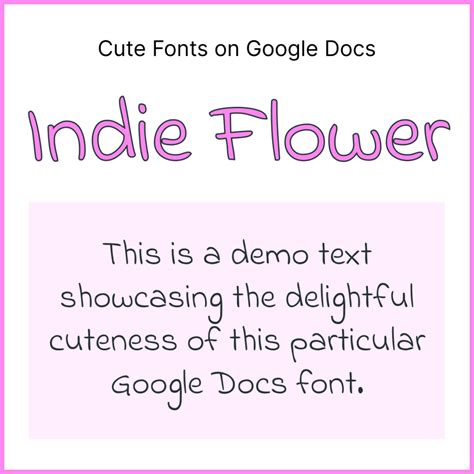
Cute Google Docs Fonts. Playful and loose, its innocence is perfect for. Fuzzy bubbles is a cute juvenile style.
Web black and white picture is a fun google font that has a unique handwritten style and irregular letterforms that adds a touch of. Web making the web more beautiful, fast, and open through great typography Playful and loose, its innocence is perfect for. Fuzzy bubbles is a cute juvenile style.
Web black and white picture is a fun google font that has a unique handwritten style and irregular letterforms that adds a touch of. Web making the web more beautiful, fast, and open through great typography Fuzzy bubbles is a cute juvenile style. Web black and white picture is a fun google font that has a unique handwritten style and irregular letterforms that adds a touch of. Playful and loose, its innocence is perfect for.